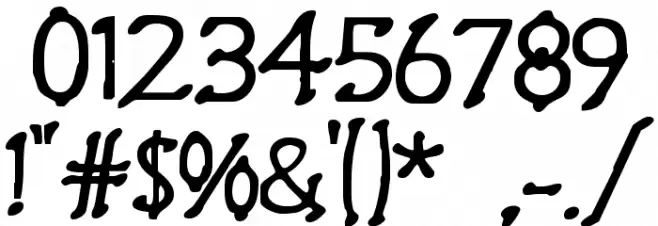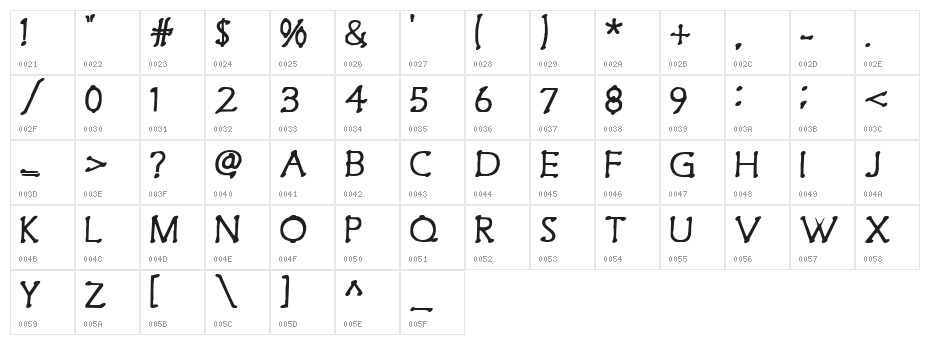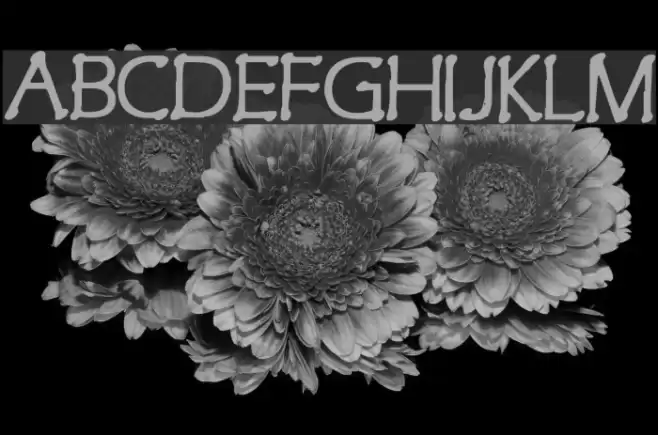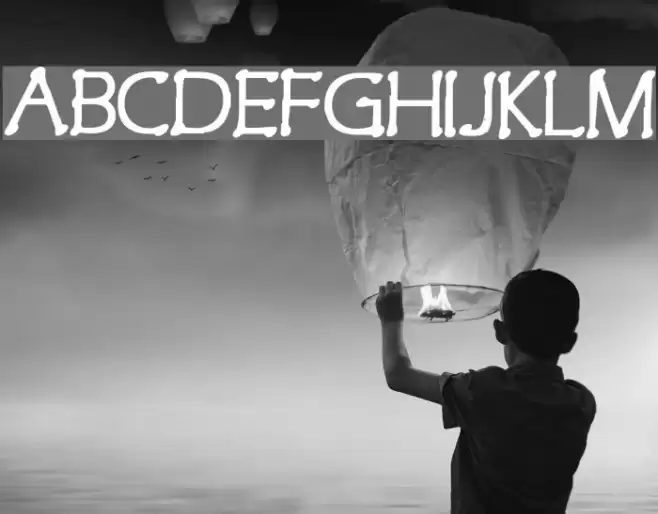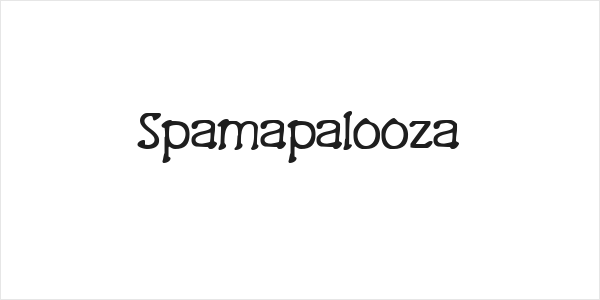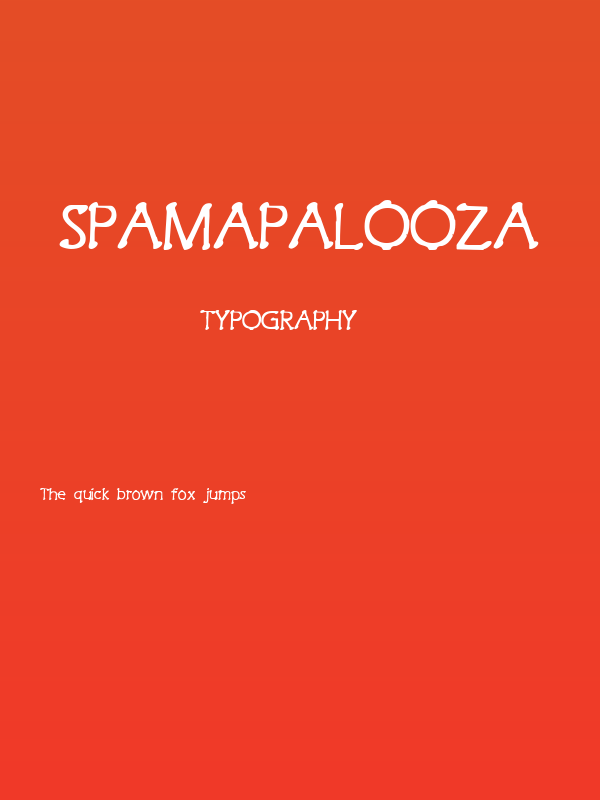
Spamapalooza Font
Spamapalooza Description
This font features a playful and slightly irregular design, characterized by its hand-drawn appearance. The letters have a whimsical, almost cartoonish quality, with varying stroke thicknesses that add to its charm. The uppercase letters are bold and prominent, while the lowercase letters maintain a consistent style with a touch of quirkiness. The numerals are distinct and easy to read, matching the overall playful theme. Special characters are creatively designed, adding to the font's unique personality. This font is perfect for projects that require a fun and informal touch.